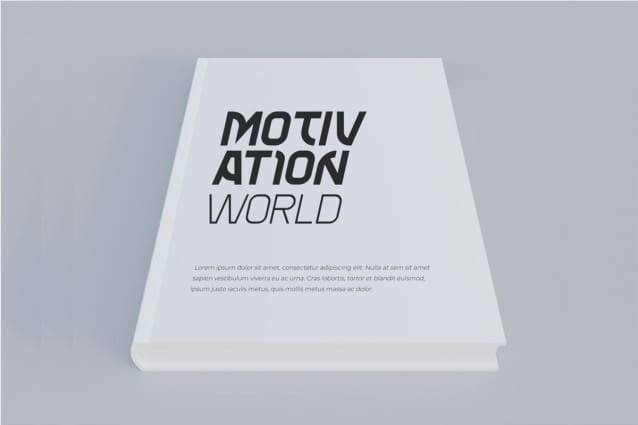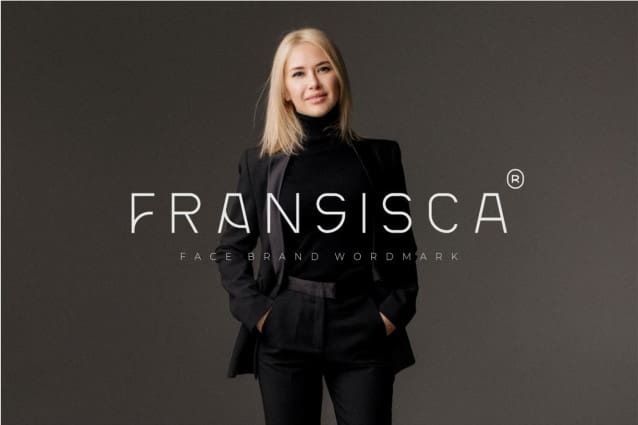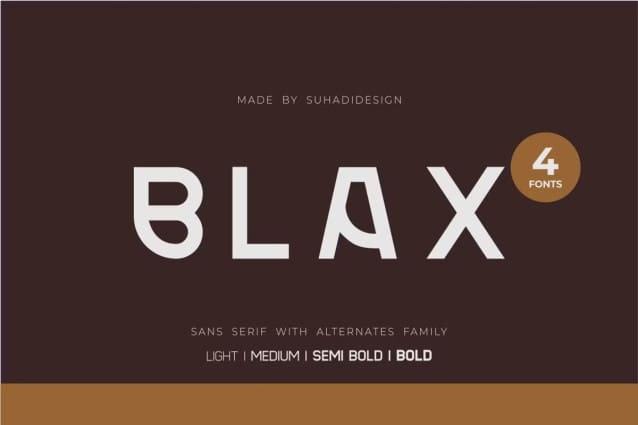
Blax Font
Blax Font – Sans Serif Alternate Font Family is a sans serif font with a modern typeface. With a modern model and equipped with alternate features, it has become a market favorite. We keep this font looking elegant, classy, ​​stylish. It is a great choice for brands, logos,cosmetics, beauty, wordmarks, magazines, designs, books, publications, branding, brand names, business cards, social media, classy design, newspapers, branding, beauty and other projects. Blax Font is here to improve the quality of your designs.